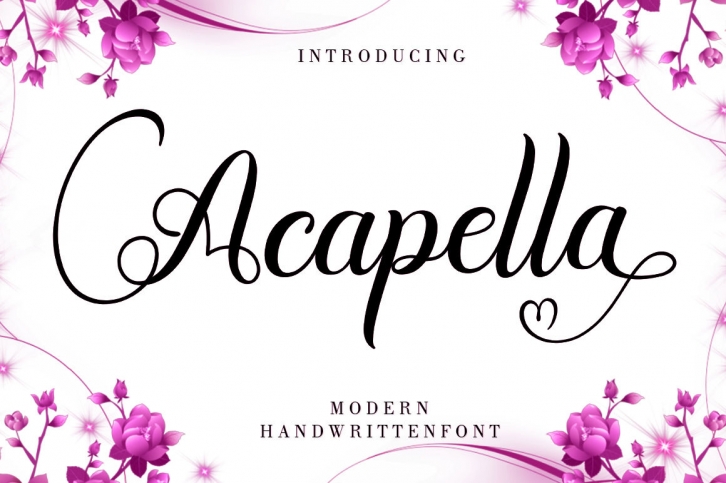
Introducing Acapella Script is a modern handwritten font with handwritten suitable for invitations, logo, product packaging, wedding invitations, branding, headlines, signage, labels, signature, book covers, posters, quotes and more.This font replaces all lowercase letters, also comes with ligatures and unique and beautiful alternatives as well as international support for most western languages. Fonts include (OTF & TTF).How to access all of the alternate characters: